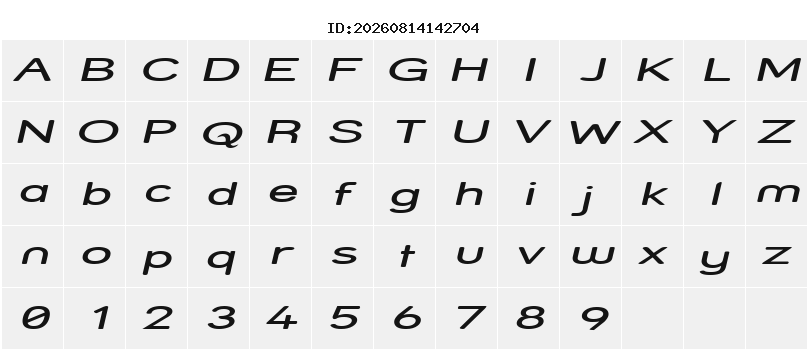
Street - Expanded Preview
• Font Name: Street - Expanded
• Font ID: GrahamMeade: Street - Expanded Italic: 2000
• Full Font Name: Street - Expanded Italic
• PostScript Name: Street-Expanded-Italic
• Designer: Graham Meade
About Street - Expanded.ttf
Street - Expanded.ttf is a modern, elegant sans-serif font designed for ultimate readability and visual harmony. Perfect for branding, headlines, web design, and print materials.